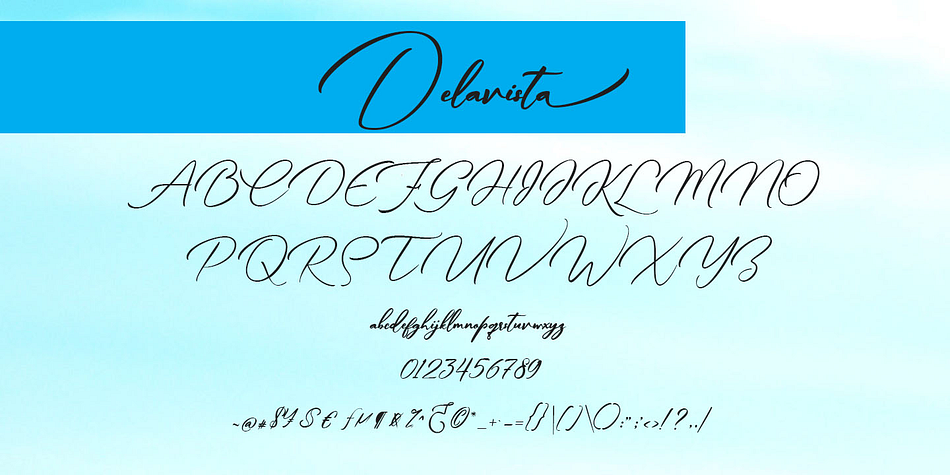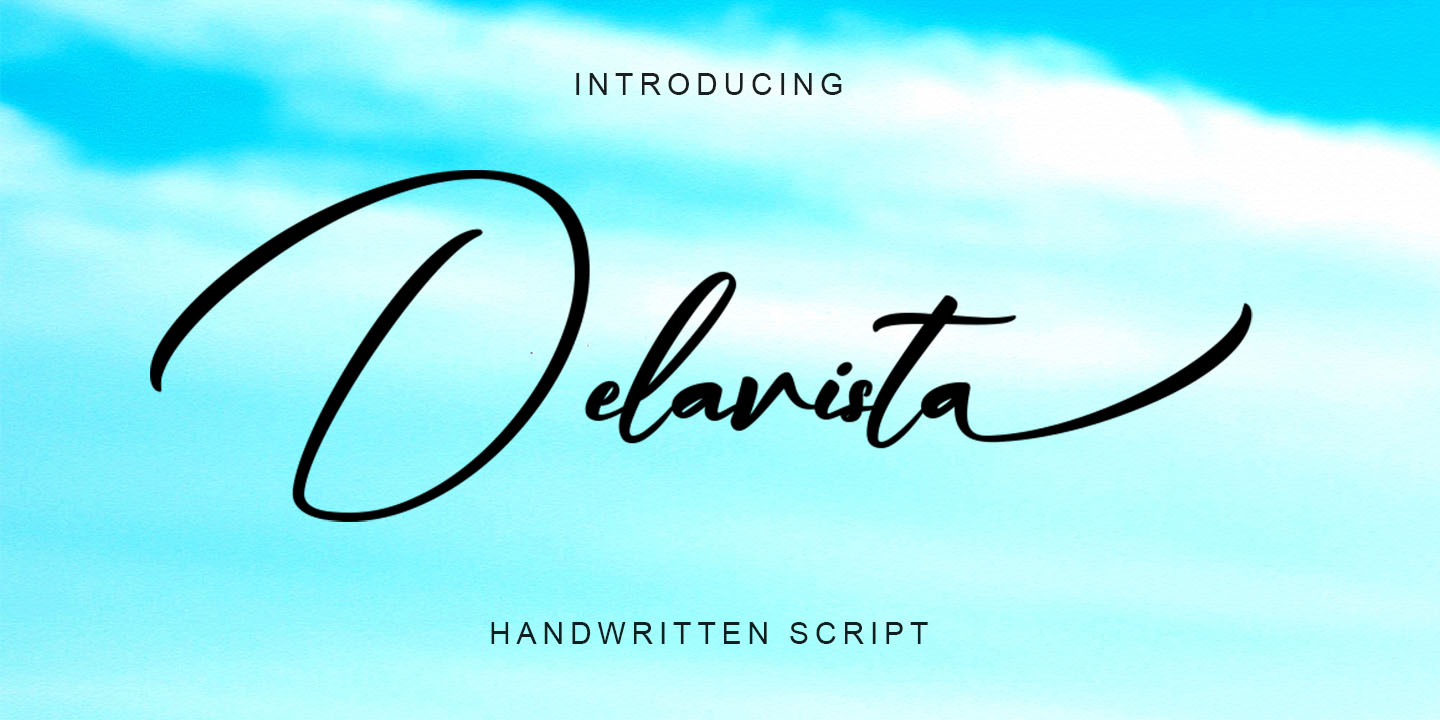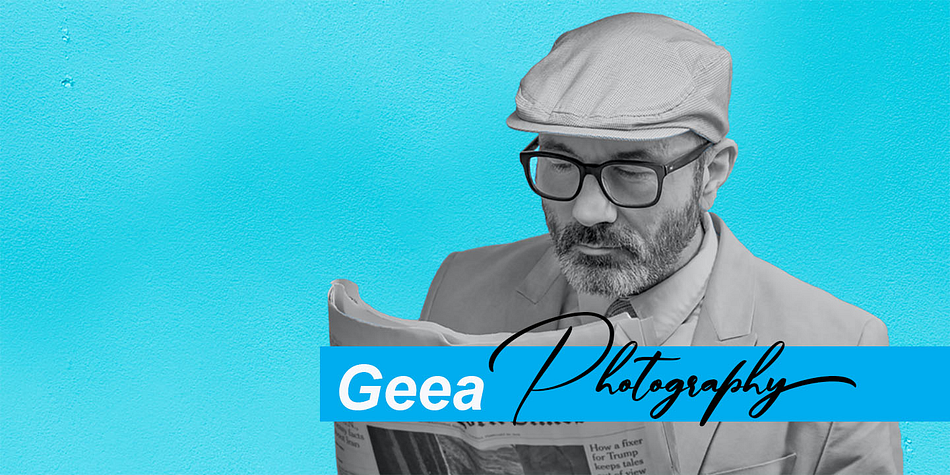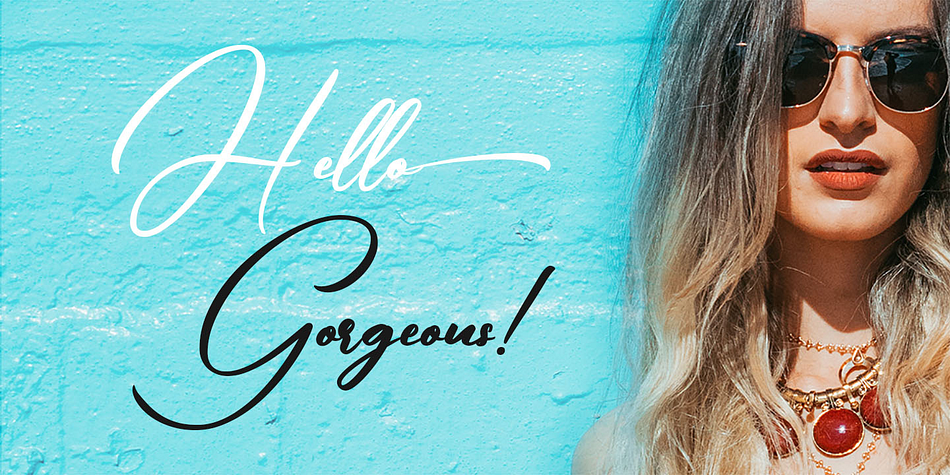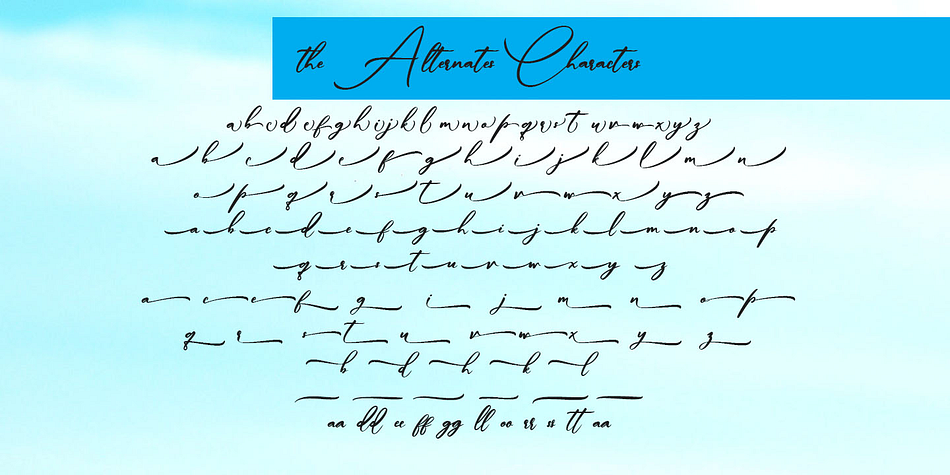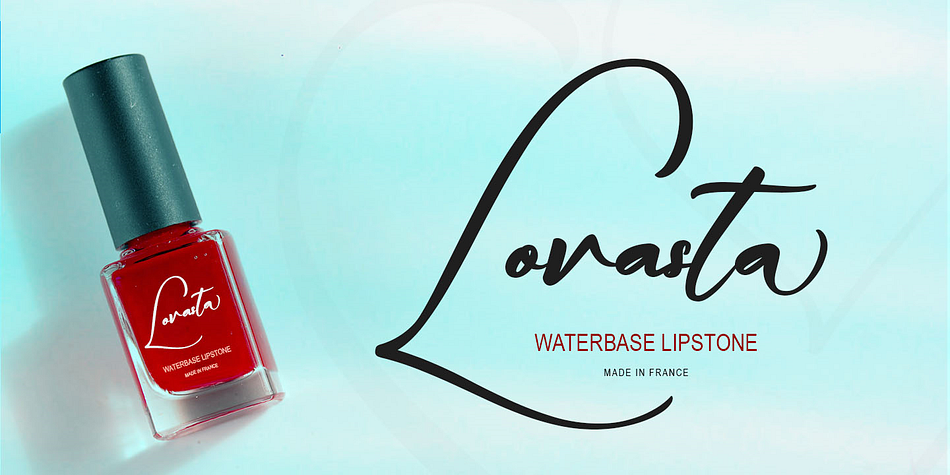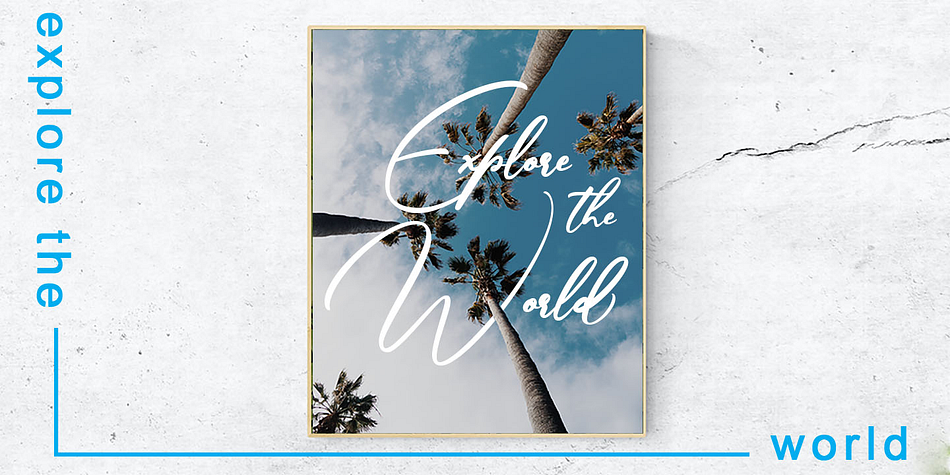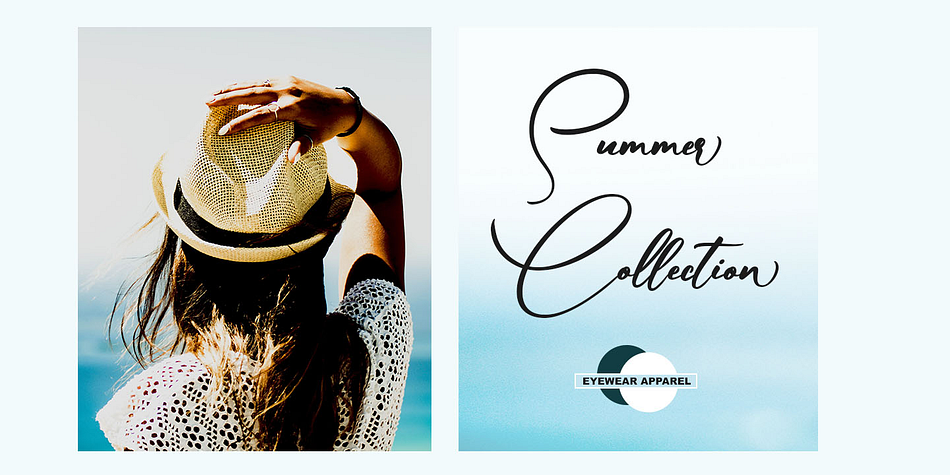
Delavista
Delavista is a modern calligraphy font family published by Gatype.
Delavista is a flowing, handwritten font, explained with a touch of elegance, perfect for your favorite projects. Fall in love with her completely different and timeless style and use it to create spectacular designs! Fall in love with it and take your projects to the highest level! This font is PUA encoded which means you can easily access all the glyphs and ligatures!